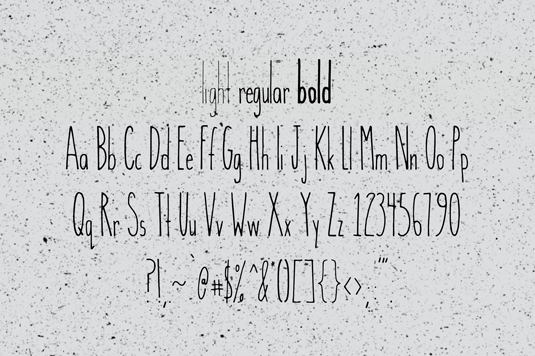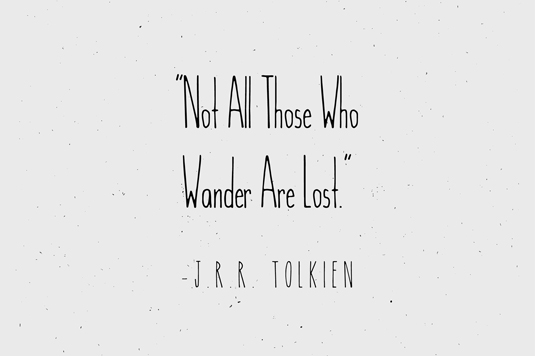
Font of the day: Wanderlust
Every day we showcase the best fonts on the web. Today it's Wanderlust by Justine Lazo.
Wanderlust by Justine Lazo
Kicking off our font of the day posts is alphanumeric typeface Wanderlust. Created by designer Justine Lazo of Muse Design, Wanderlust is great for creating eye-catching headlines and posters.